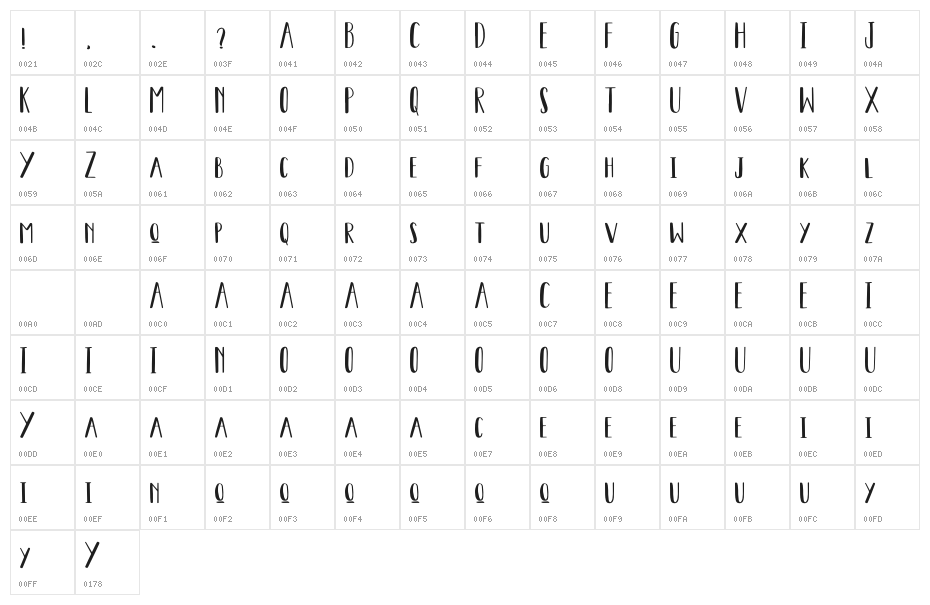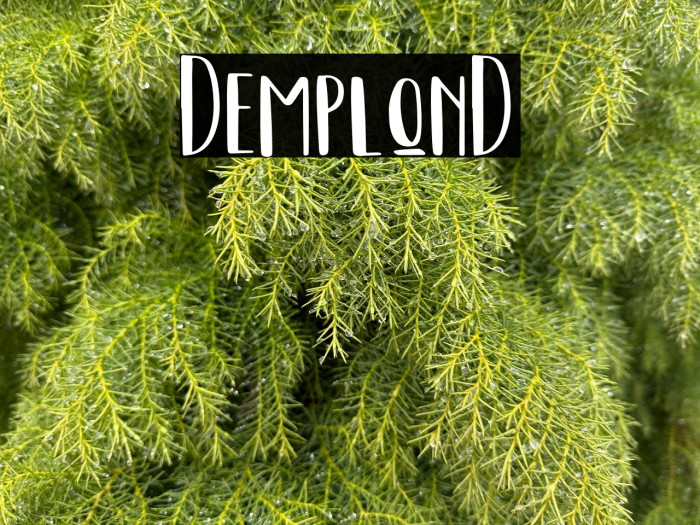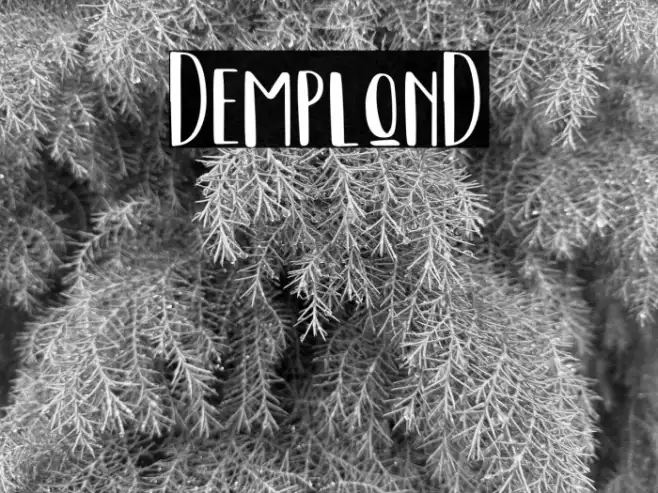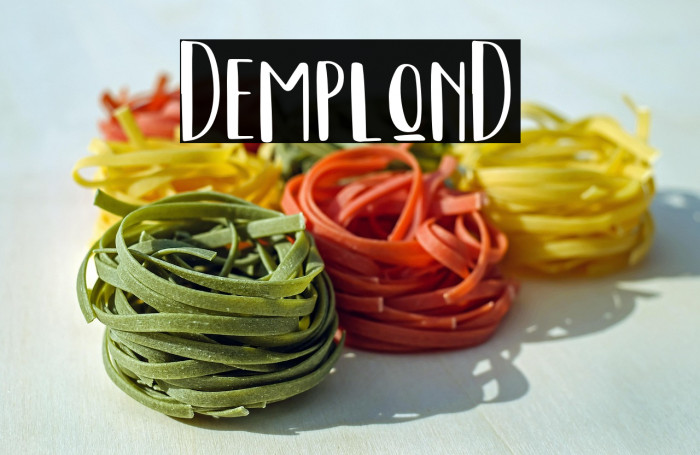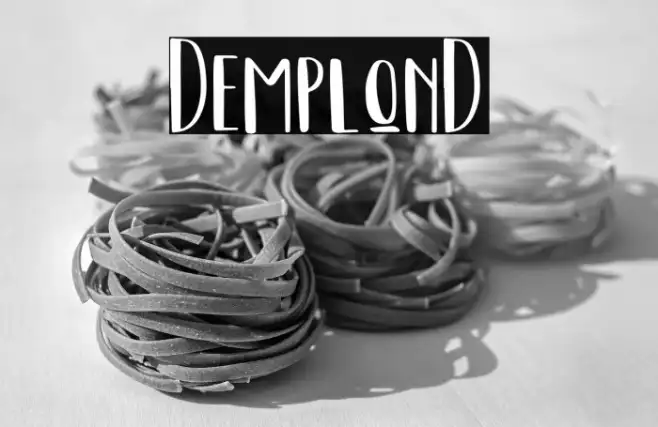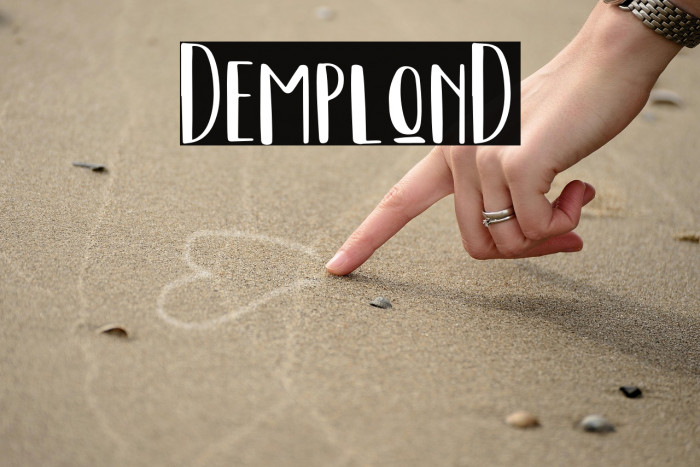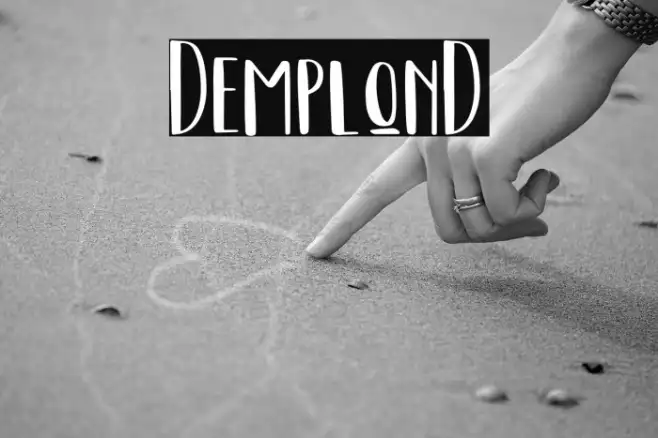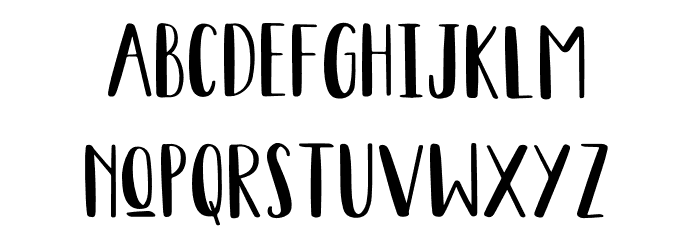
DemplonD Font
DemplonD Description
This font features a playful and modern handwritten style with a slightly irregular baseline, giving it a casual and approachable feel. The uppercase letters are tall and narrow, with a slight slant that adds a dynamic touch. The lowercase letters maintain a consistent style, complementing the uppercase with their rounded and smooth curves. The strokes are moderately thick, providing good readability while maintaining a friendly appearance. The font lacks traditional serifs, emphasizing its contemporary design. It is versatile, suitable for both digital and print media, and can be used to convey a sense of warmth and personality.
| Proposed Projects | Ideal for greeting cards, social media graphics, branding projects, and informal invitations. |